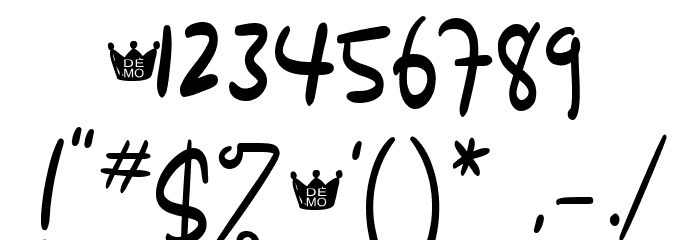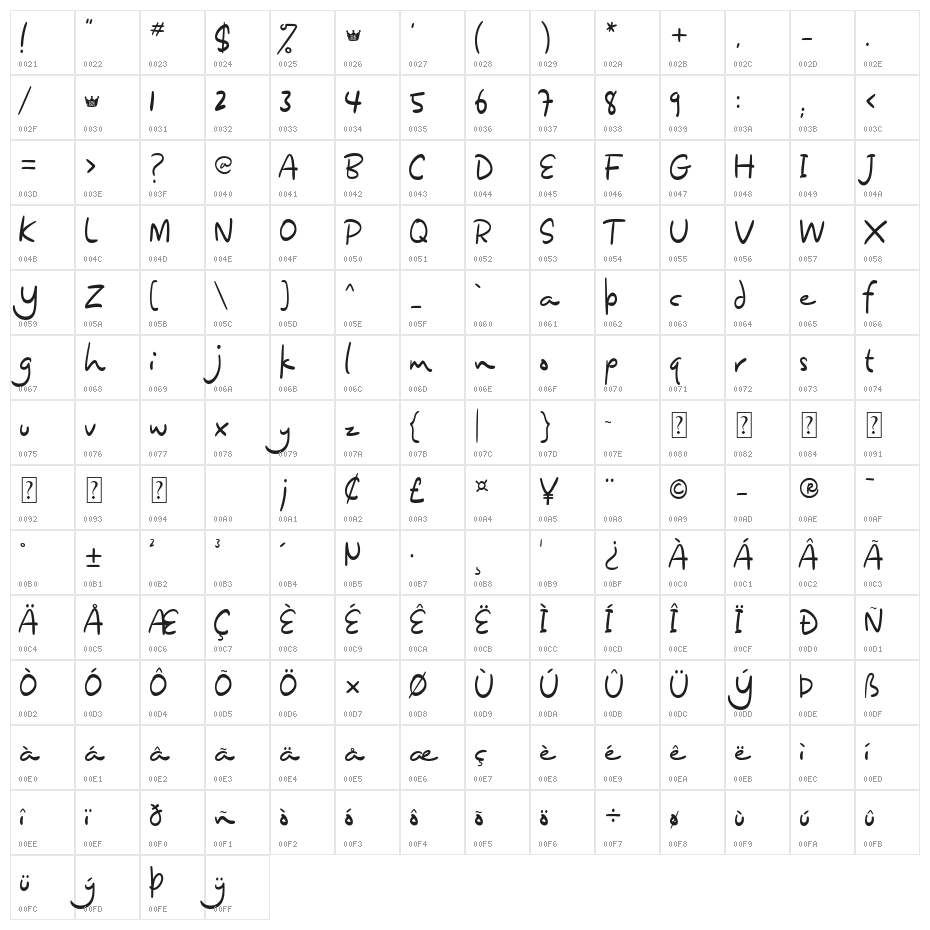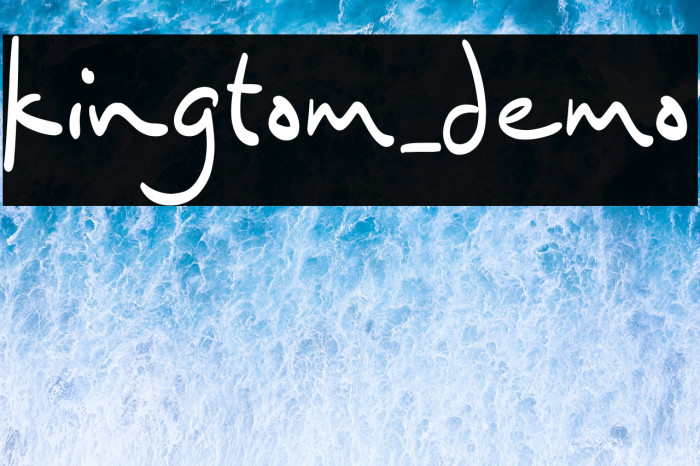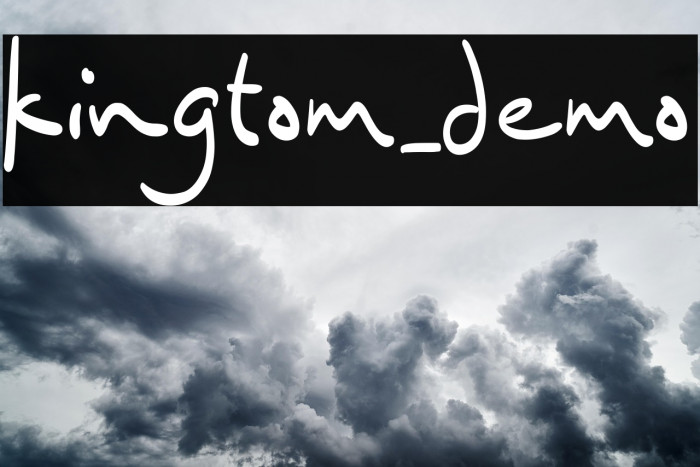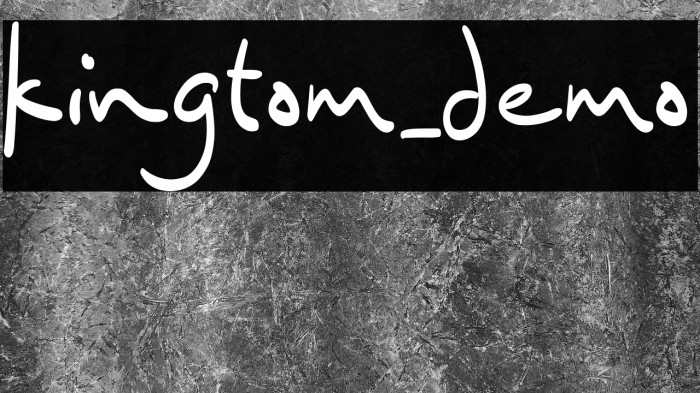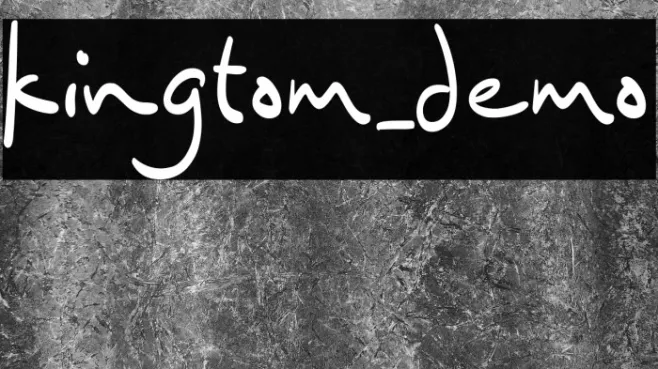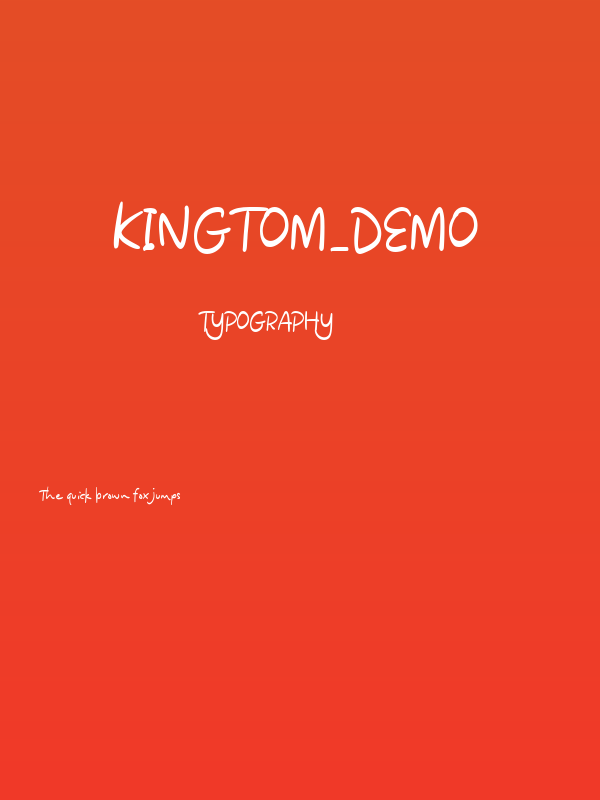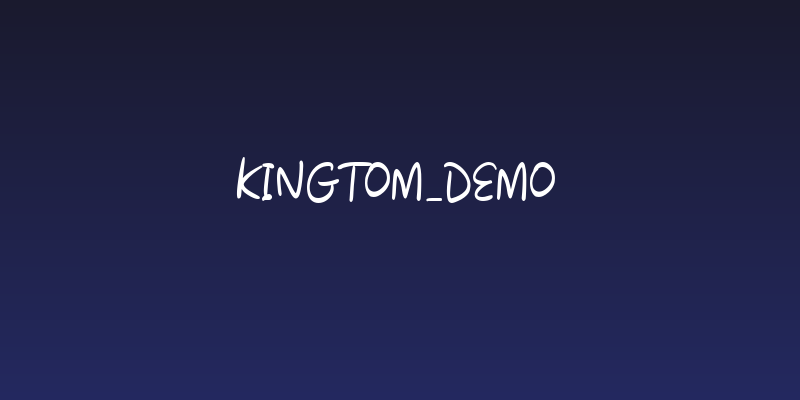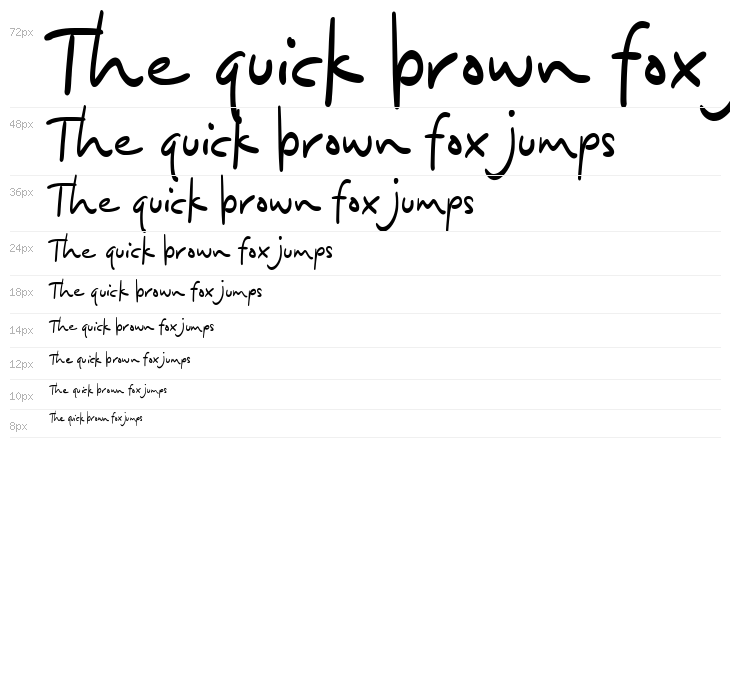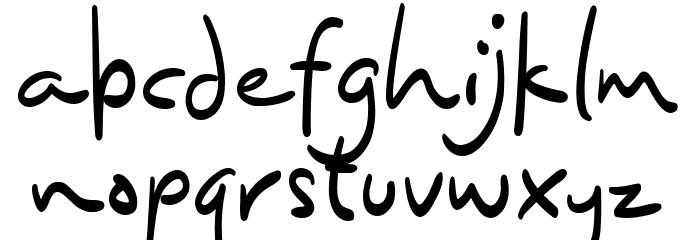
This font features a playful and casual handwritten style, characterized by smooth, flowing lines and a slightly uneven baseline that adds a sense of movement and personality. The uppercase letters are bold and confident, while the lowercase letters maintain a friendly and approachable appearance. Numbers and special characters are designed with the same whimsical touch, making them suitable for creative and informal projects. The overall look is modern yet relaxed, perfect for conveying a sense of fun and creativity.
| Overall Style | Modern, Casual |
| Proposed Projects | Ideal for greeting cards, children's books, playful branding, and social media graphics. |